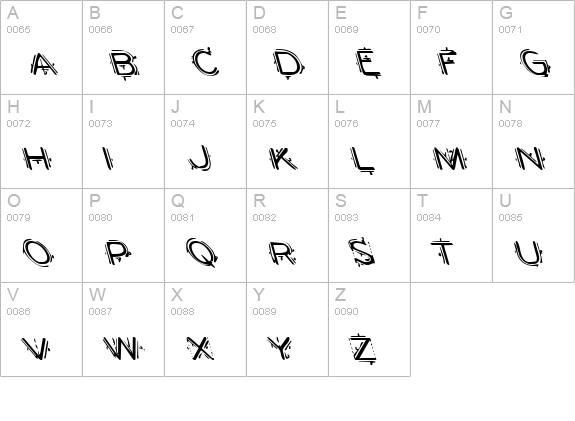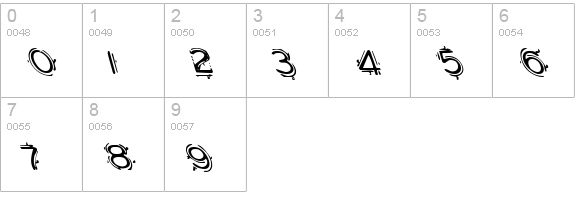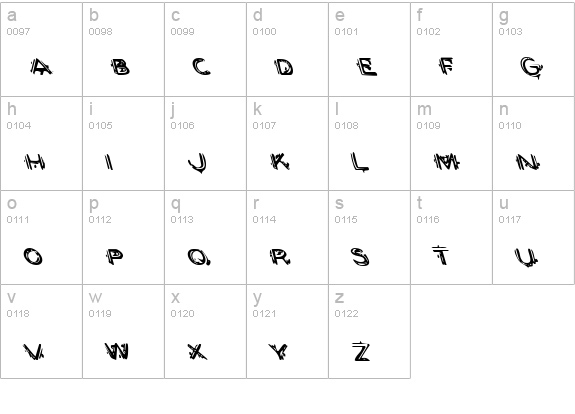
Berserker Leftalic font embodies the raw energy and intensity of a warrior in battle, with its bold and dynamic letterforms that exude power and strength. The slanted, italic design adds a sense of movement and ferocity to each character, creating a striking visual impact. Perfect for projects that require a touch of aggression and boldness, Berserker Leftalic is a versatile typeface that commands attention. And the best part? Berserker Leftalic font is available for free download at FontsMarket.com, making it easily accessible for designers and creatives looking to add a touch of fierceness to their projects. Don't miss out on this powerful and impactful font that will take your designs to the next level!